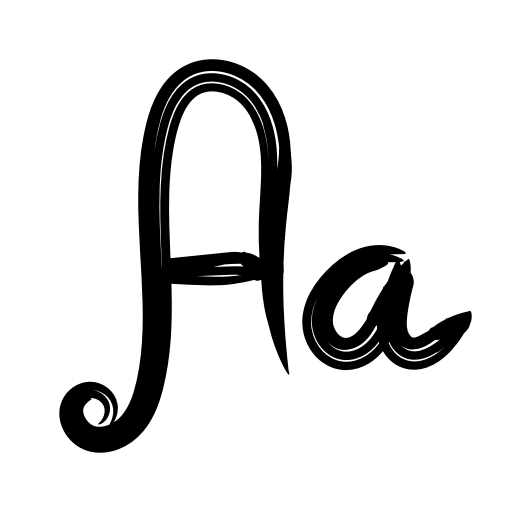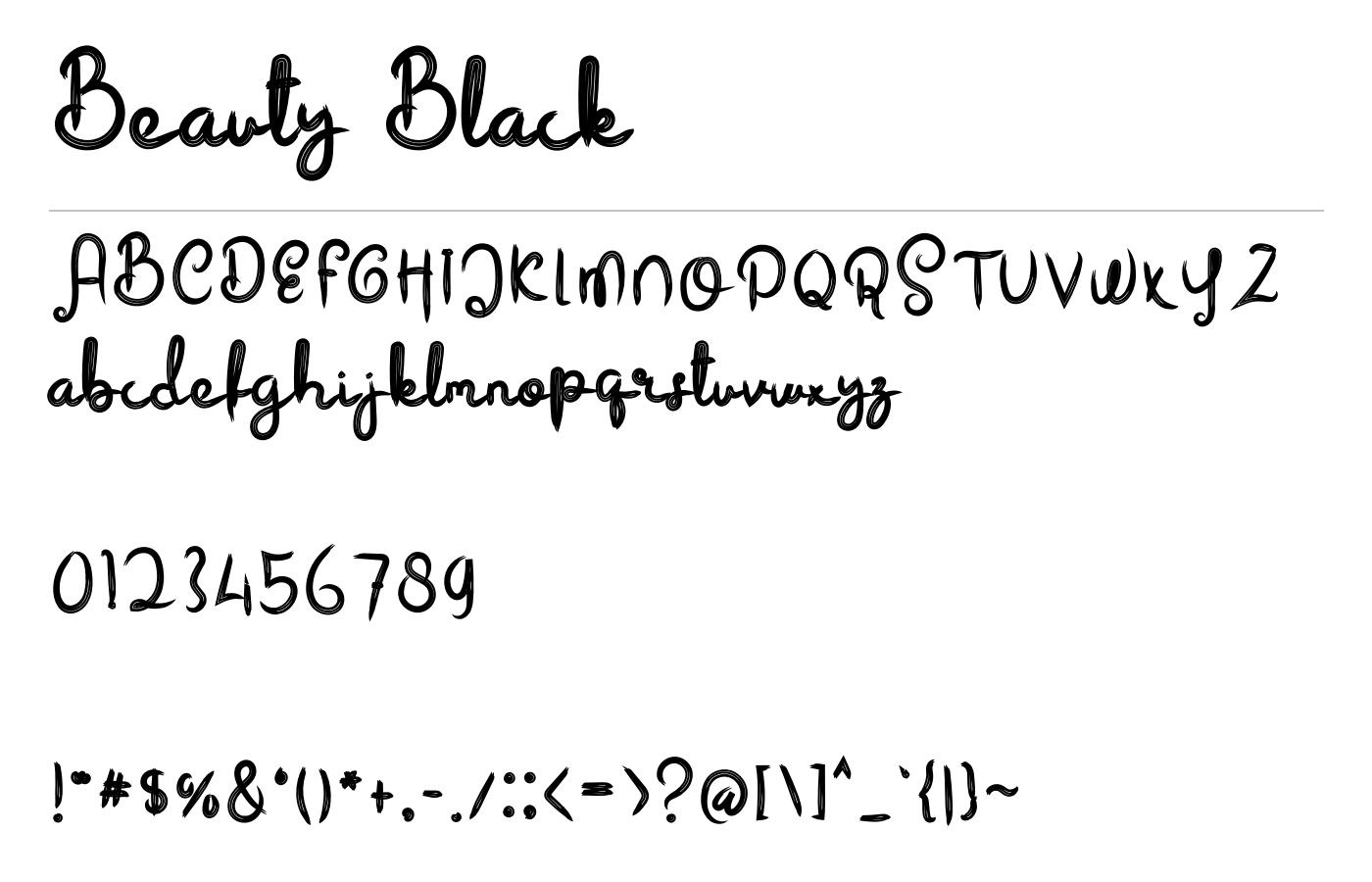
Beauty Black is a playful and lively script font with a hand-drawn feel, featuring bold, flowing strokes and unique, whimsical letterforms. Its casual yet expressive style makes it ideal for creative branding, invitations, and packaging where a fun and approachable personality is desired. This font works well in headlines and decorative use, bringing charm and character to designs without sacrificing readability.
Beauty Black Font
About Beauty Black Font
| Font family | Beauty Black Font |
| Designer | Nur Edi Prayitno |